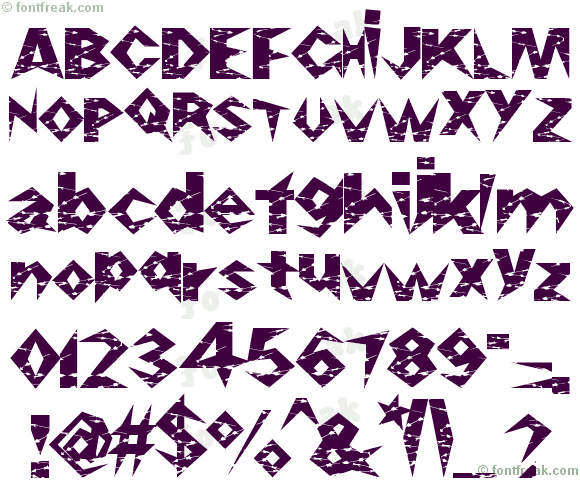
RazorSlice
RazorSlice by XEROGRAPHER FONTS is a striking display typeface that embodies a unique, edgy aesthetic. This font, created in 2012, features sharp angles and fragmented letterforms that give it a bold, contemporary look. The stroke weight varies throughout, creating an exciting contrast that draws the eye. The uneven spacing between characters enhances its dynamic feel, making it particularly suitable for projects that require a touch of creativity and flair.
One of the standout features of RazorSlice is its ability to convey a sense of movement and energy, making it ideal for a variety of creative applications. It is particularly well-suited for use in music festival posters, streetwear branding, and skateboarding graphics. Additionally, RazorSlice can add a unique touch to urban-themed restaurant menus or eye-catching promotional materials for events. Graphic designers and content creators will find this font to be an excellent tool for projects that need a modern edge.
Small business owners looking to create a memorable brand identity can also benefit from the distinctiveness of RazorSlice. Its unconventional style sets it apart from more traditional fonts, making it an excellent choice for businesses aiming to appeal to a youthful or niche audience.
What truly makes RazorSlice stand out is its ability to blend artistry with functionality. The font captures attention while remaining highly readable, ensuring that your message is conveyed effectively. With its unique visual characteristics and versatile applications, the RazorSlice font free download is a fantastic addition to any designer's toolkit, allowing for creativity and innovation in various design projects.